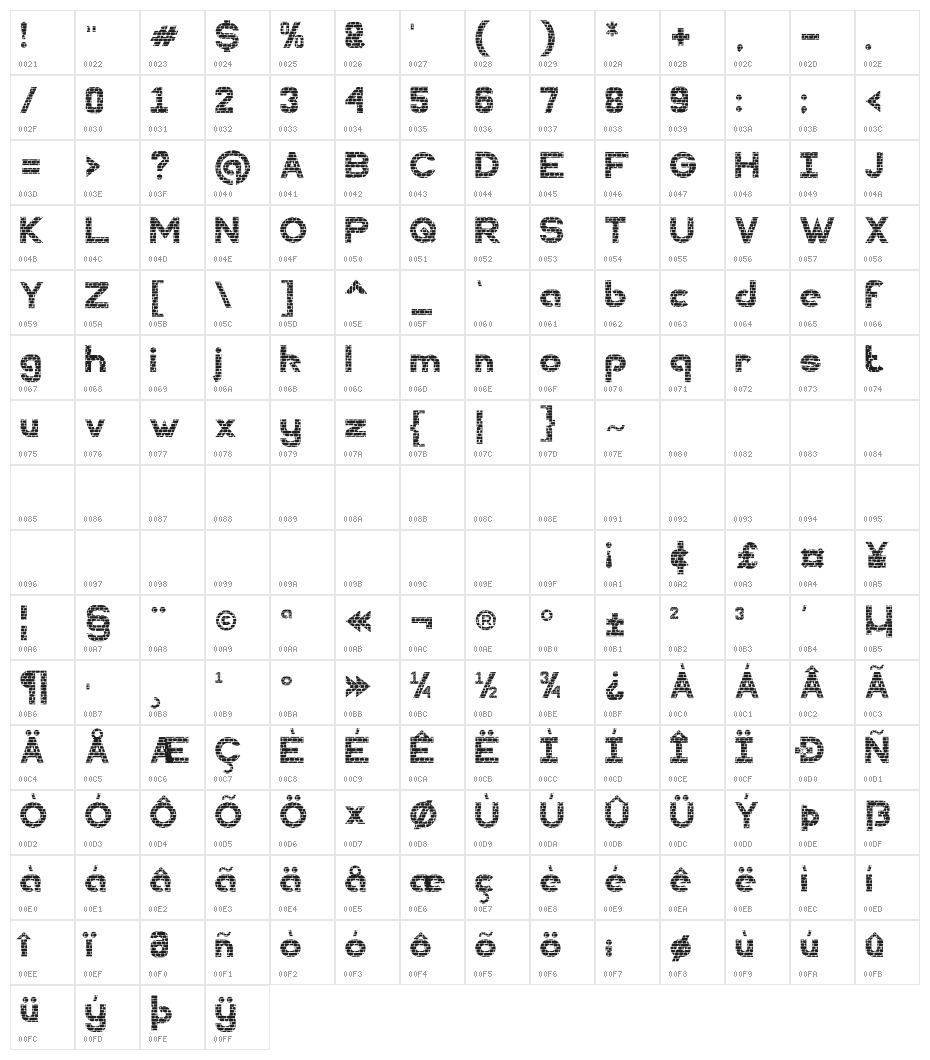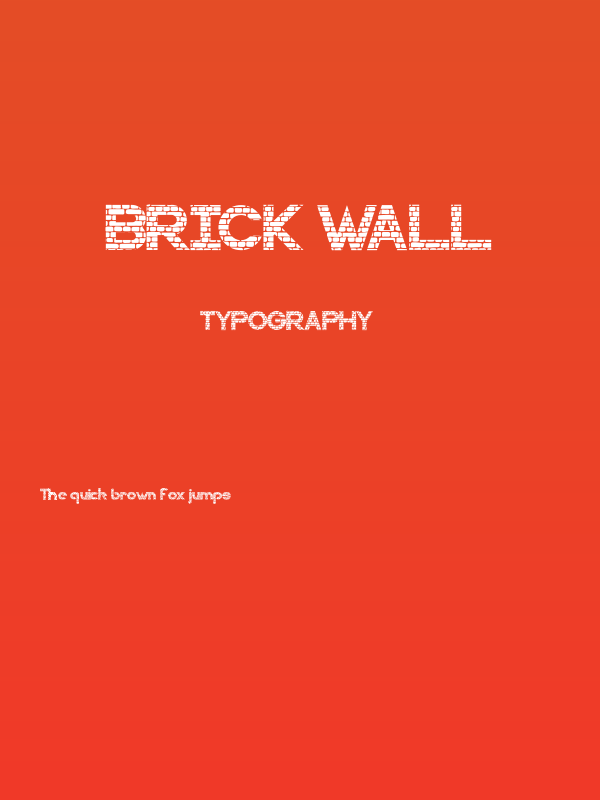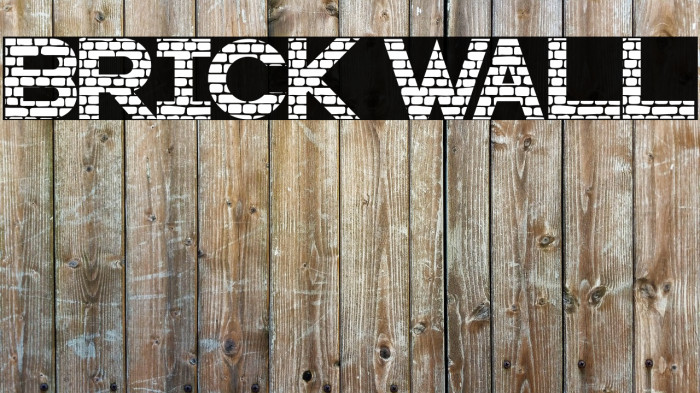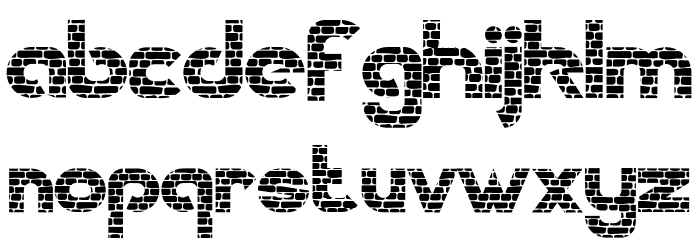
BRICK WALL Font
BRICK WALL Description
This font features a unique design where each character is constructed to resemble a brick wall pattern. The letters and numbers are bold and blocky, with a consistent brick motif throughout. This decorative style gives a rugged and industrial feel, making it stand out with its textured appearance. The characters are evenly spaced, maintaining a uniform look across both uppercase and lowercase letters, as well as numbers and special symbols. The font's distinct style is perfect for projects that require a strong, eye-catching visual element.
| Proposed Projects | Ideal for urban-themed designs, construction company logos, event posters, or any project needing a strong, textured visual impact. |